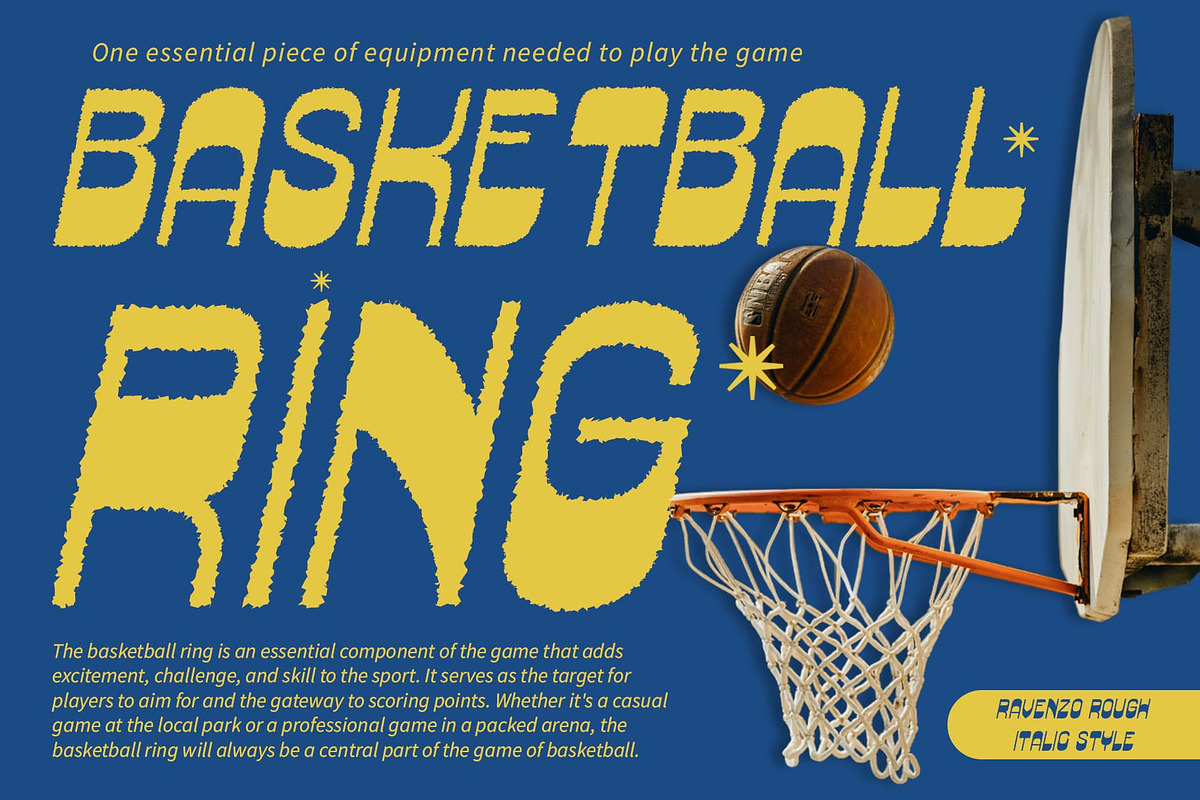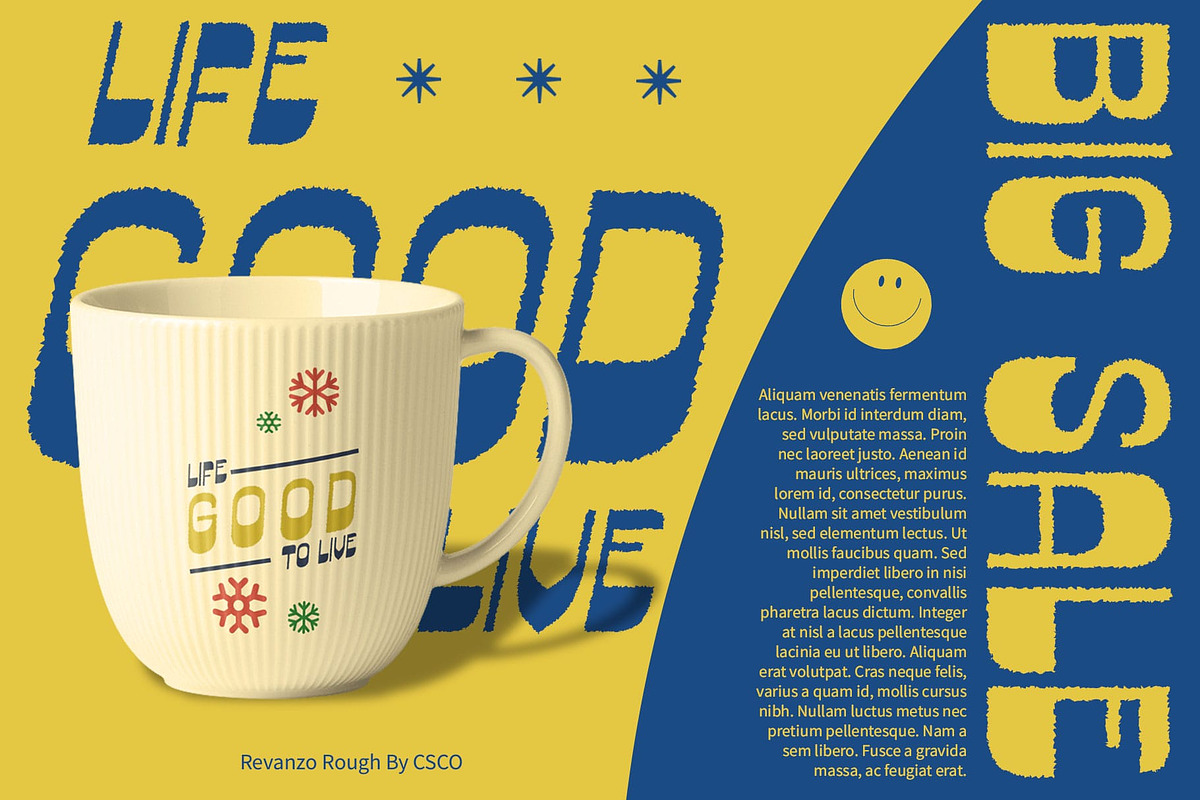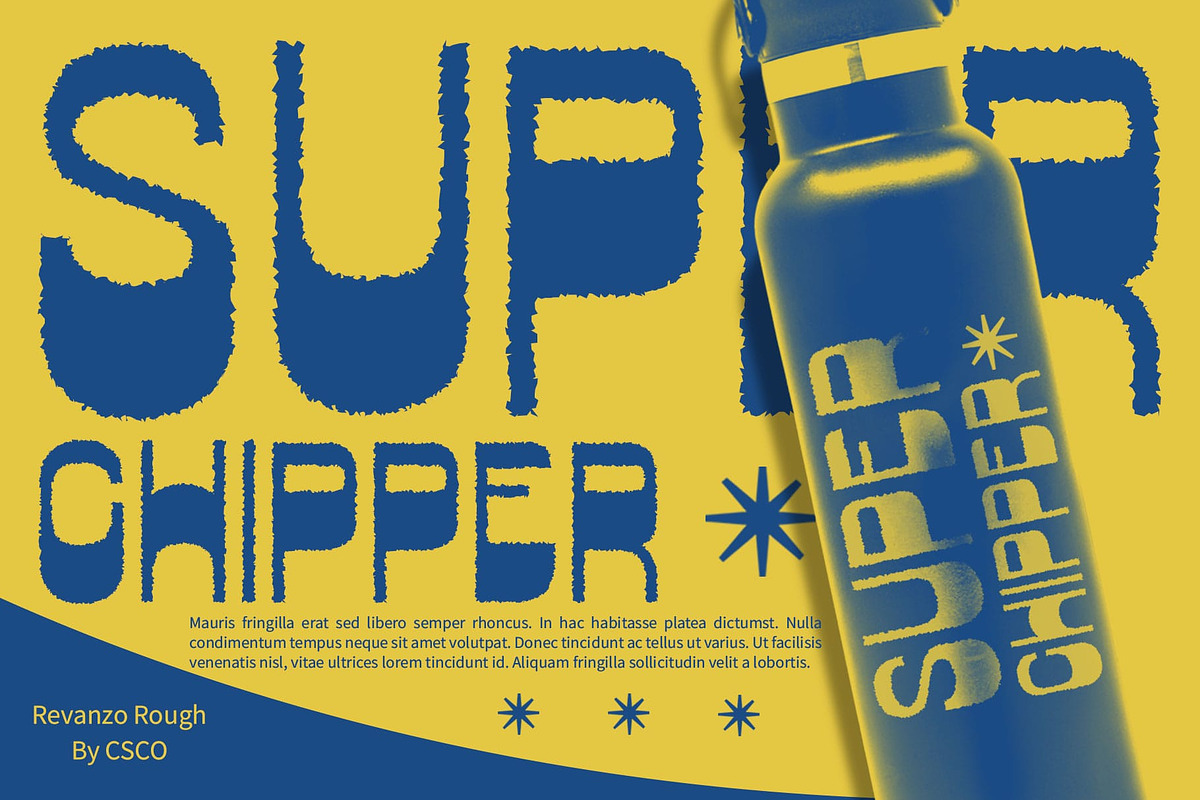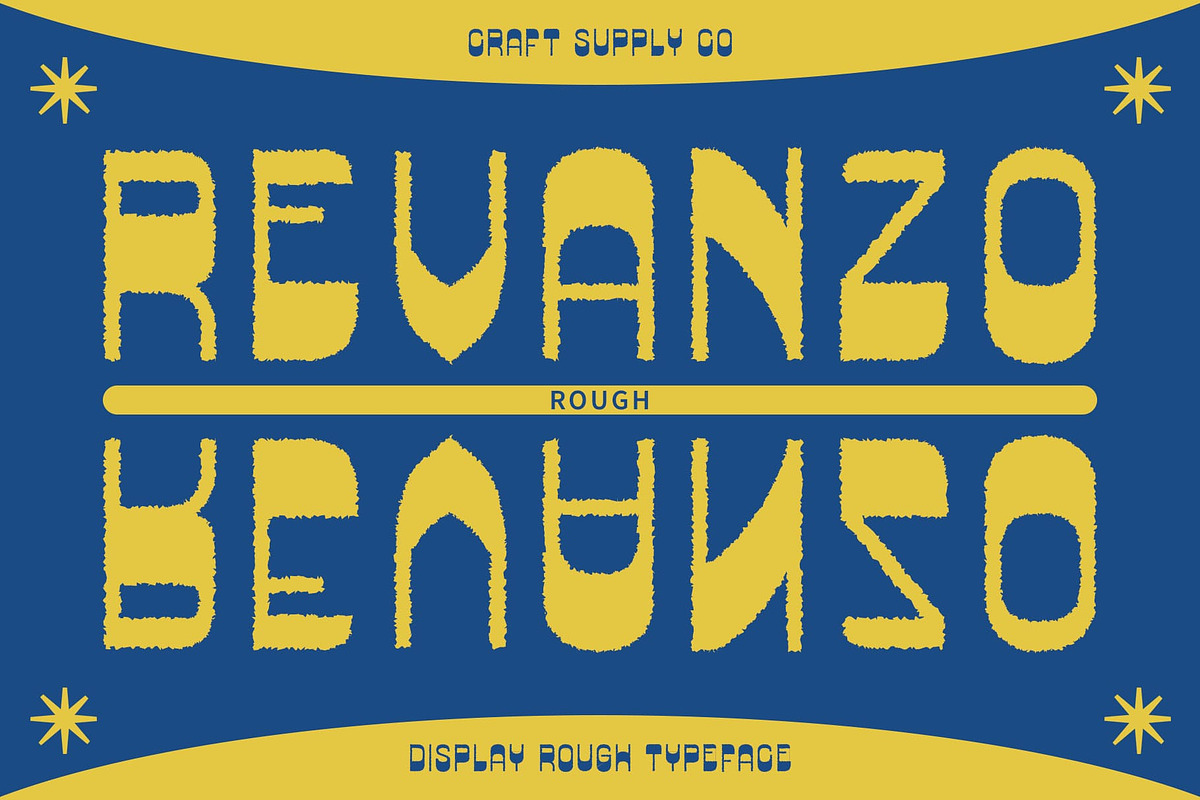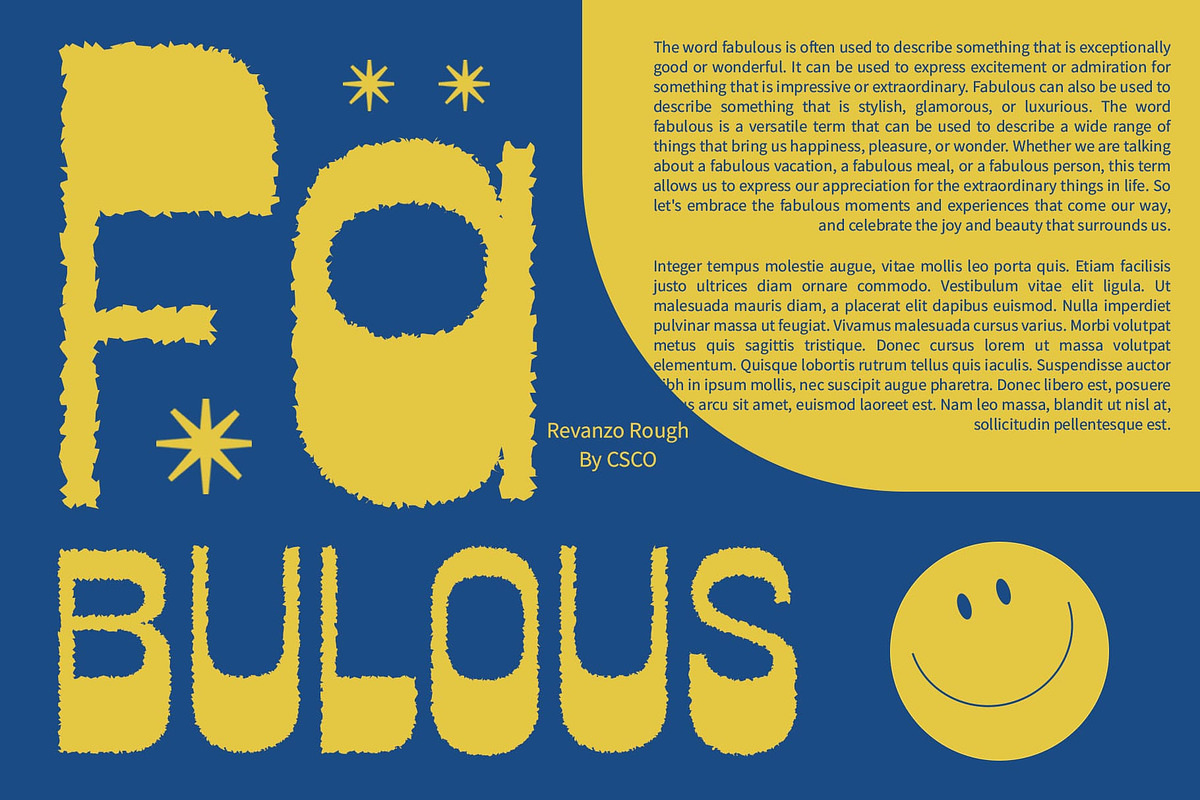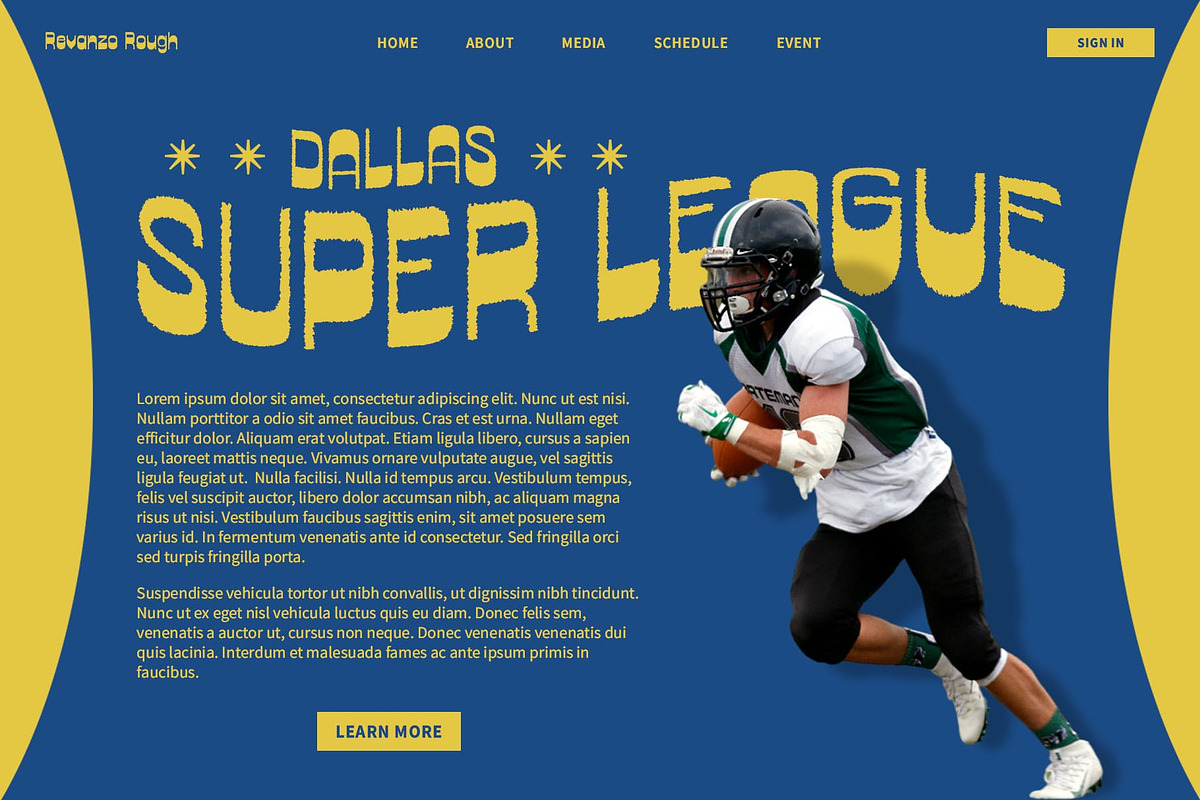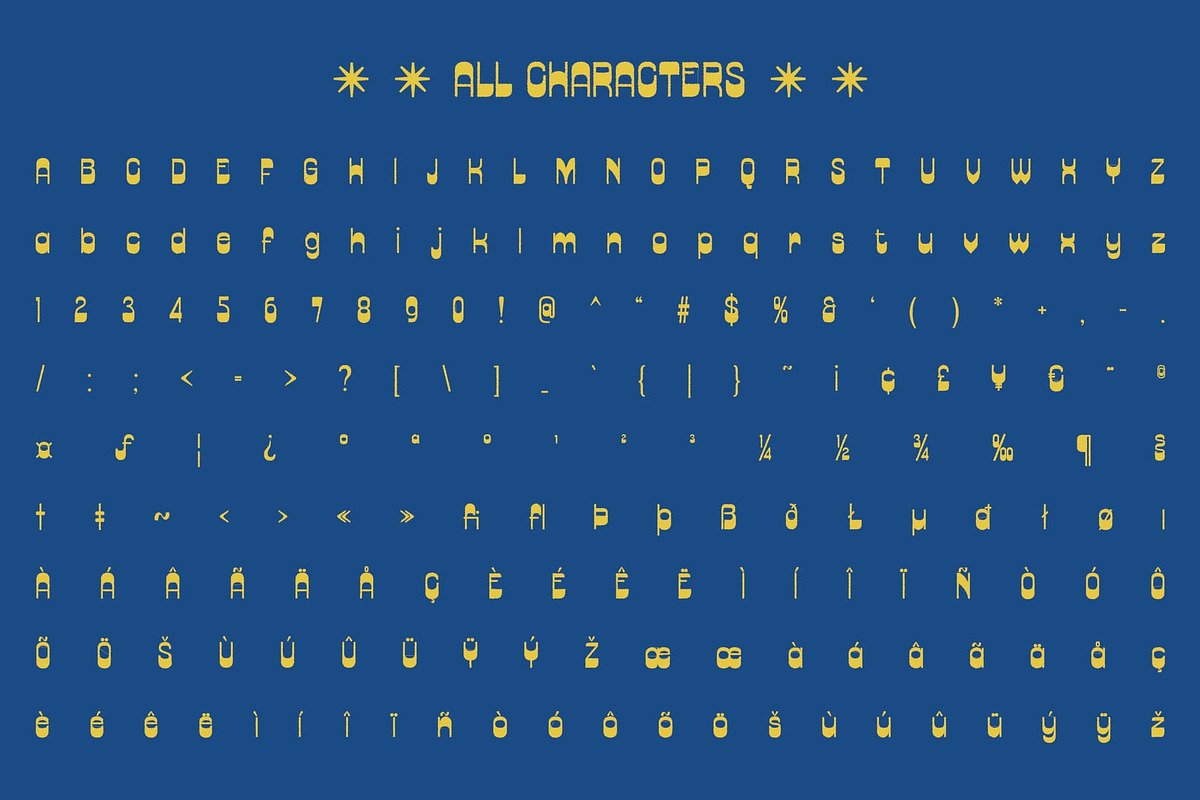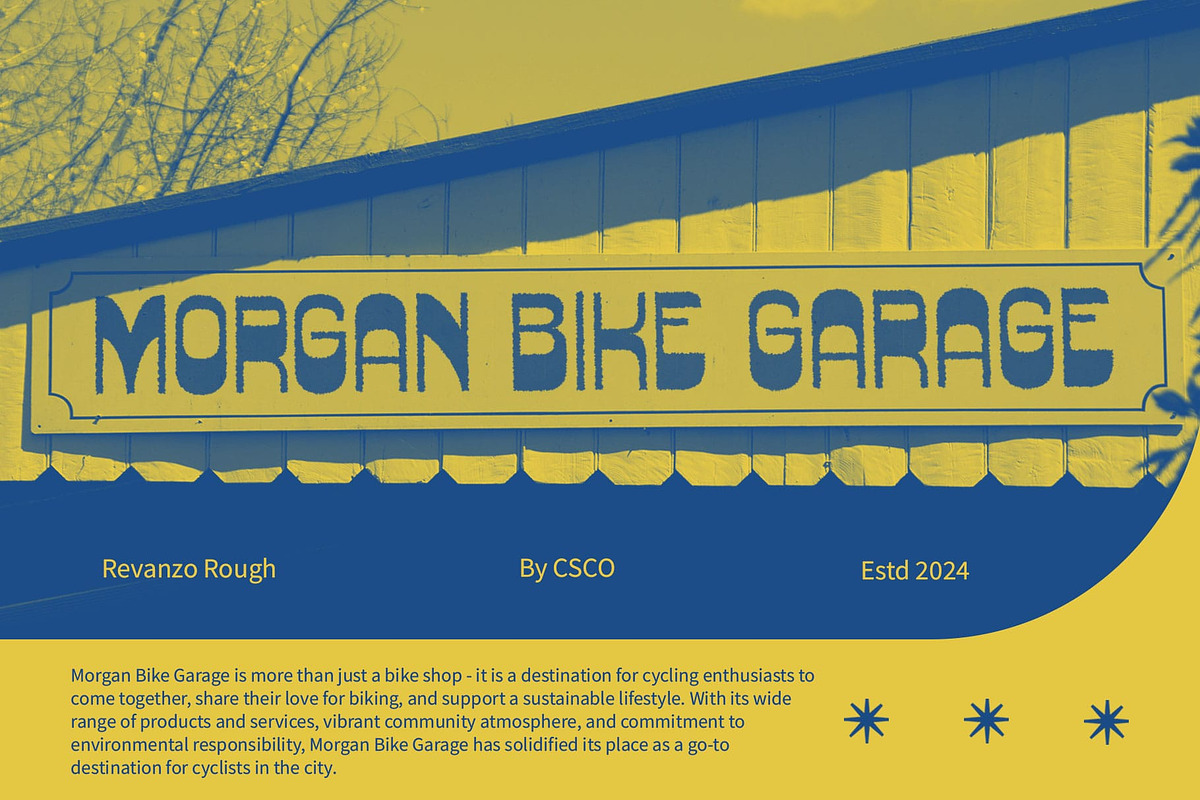
Revanzo Rough
Revanzo Rough: Funky Retro-Style Display Font
Unique Retro Vibes Revanzo Rough is a funky retro-style display font with a reverse contrast design and rough vibes. Its distinctive look adds a playful yet vintage feel to your projects, ensuring they captivate with a unique and nostalgic charm.
Ideal for Captivating Displays Designed to stand out, Revanzo Rough is perfect for headlines, banners, and other display purposes. Its funky retro style and rough vibes guarantee that your message is both seen and remembered.
Versatile and Eye-catching Despite its retro inspiration, Revanzo Rough is versatile and eye-catching. Its reverse-contrast design makes it suitable for a wide range of projects, from branding to digital designs, where a font with a strong visual impact is essential to make a statement.
Perfect for Adding Retro Charm Revanzo Rough is ideal for projects that require a font with retro charm. Whether you’re designing a poster, logo, or website, this font will undoubtedly add a unique and memorable touch to your designs.